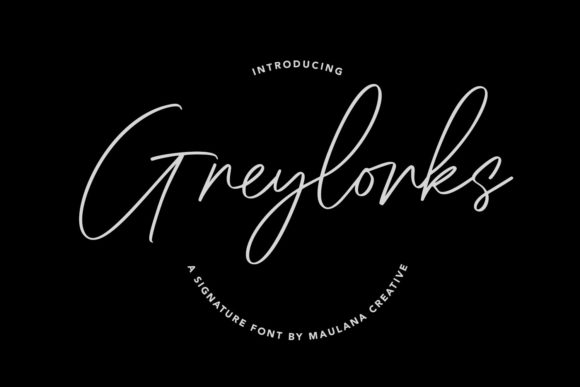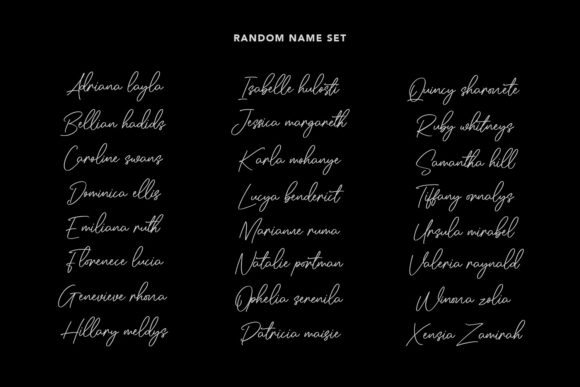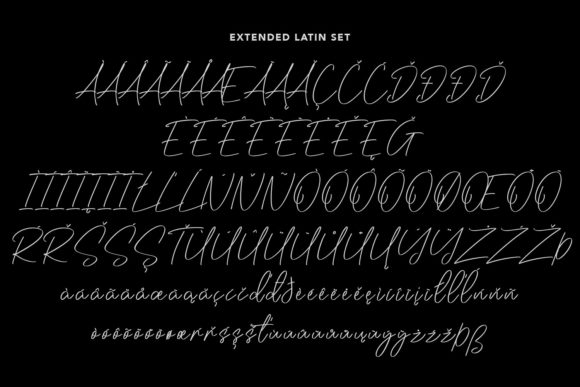
Greylorks Font
About Greylorks Font
Greylorks is a thin and delicate script font. This font is neatly crafted and highly detailed. Whatever the topic, this font will be a wonderful asset to your font library, as it has the potential to enhance any creation.